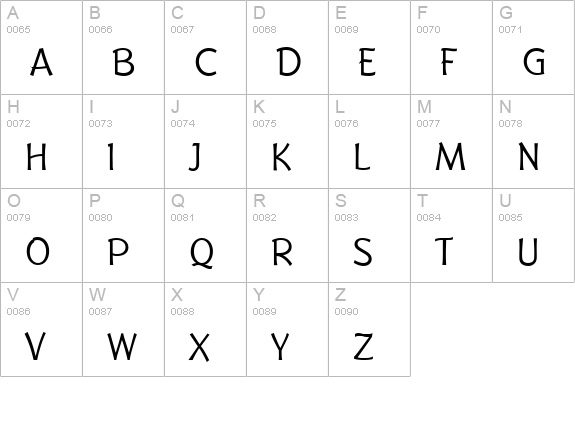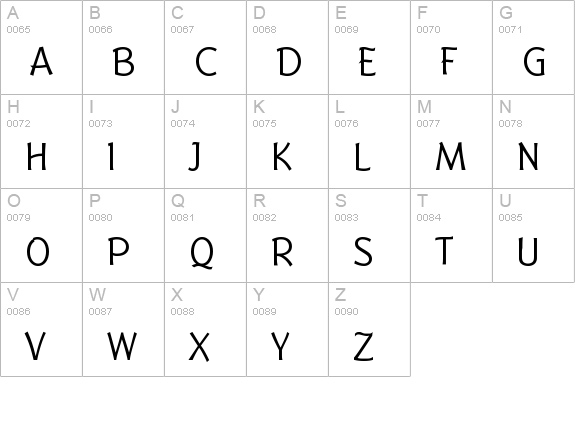
BadgerLight Font Details
Introducing BadgerLight font - a versatile and modern typeface that combines sleek, clean lines with a touch of playfulness. This elegant font is perfect for a wide range of design projects, from branding to editorial design. With its subtle curves and sophisticated appearance, BadgerLight font adds a touch of sophistication to any design. What makes BadgerLight font even more appealing is that it is available for free download at FontsMarket.com. This means you can easily access this high-quality font and use it in your projects without any cost. So why wait? Elevate your designs with the stylish and contemporary BadgerLight font today!